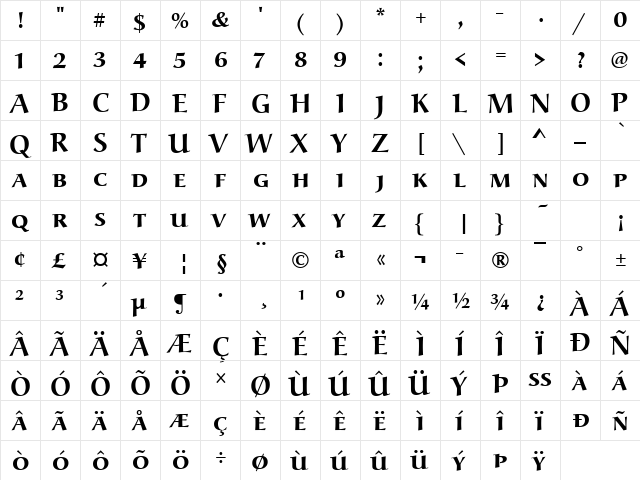
Alcuin Becker Discaps Bold Regular
Design Context for Alcuin Becker Discaps Bold Typeface
Alcuin Becker Discaps Bold offers clean, dependable letterforms without strong stylistic allegiance, making it a practical choice for designers who need flexibility. The heavy weight commands attention and anchors typographic hierarchies.